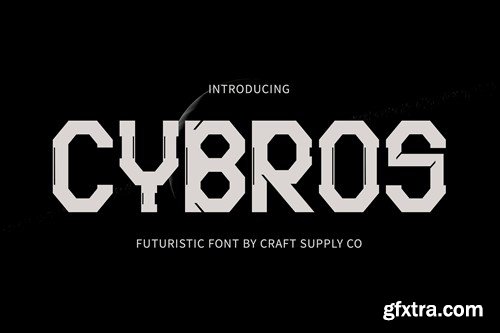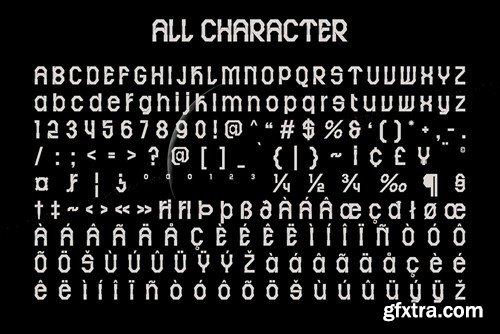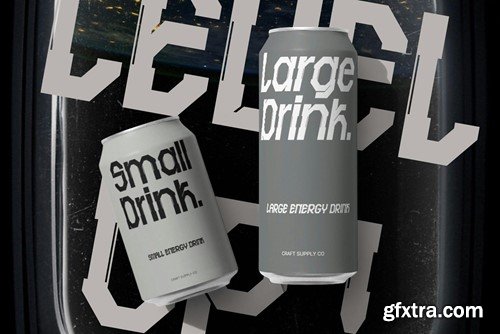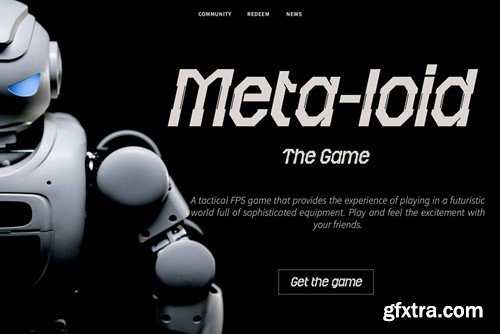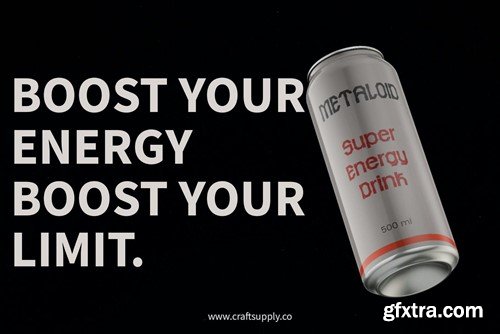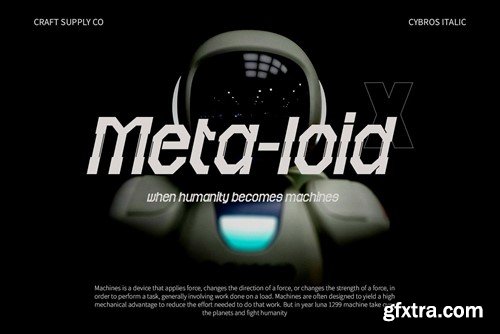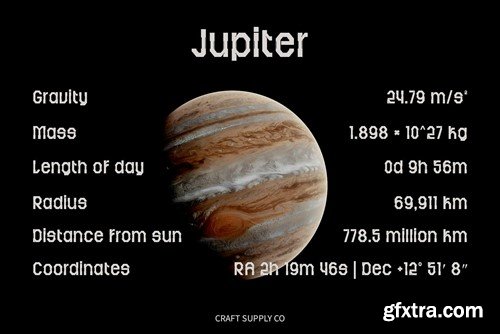
Cybotros – 智能型未来字体 XCYGVHD
Cybros: Embracing the Future in Typography Innovative Futuristic Design Cybros pushes the boundaries of display typography with its innovative design inspired by futuristic elements. Its sleek lines and geometric shapes evoke visions of tomorrow’s technology and innovation. Forward-Thinking Inspiration Drawing inspiration from the possibilities of tomorrow, Cybros embodies the essence of futuristic concepts, from artificial intelligence to space exploration. Its design reflects a forward-thinking approach to typography. Perfect for Cutting-Edge Projects Tailored for cutting-edge projects, Cybros excels in applications requiring a futuristic aesthetic. Whether used in sci-fi films, tech startups, or digital interfaces, its futuristic theme adds a dynamic and contemporary touch. Versatile and Impactful Beyond its thematic appeal, Cybros offers versatility in its application. From branding to editorial design, its futuristic vibe captivates audiences and leaves a lasting impression. Shaping Tomorrow’s Typography Cybros emerges as a beacon of innovation in the world of typography, embracing the themes of futurism and pushing the boundaries of design. With its sleek lines, geometric shapes, and forward-thinking inspiration, Cybros sets the stage for tomorrow’s visual communication. Experience the future of typography with Cybros. What you get : Features : If you have any inquiries or need assistance, please feel free to contact us. We appreciate your support in enhancing your creative projects! Best regards, Craft Supply Co.